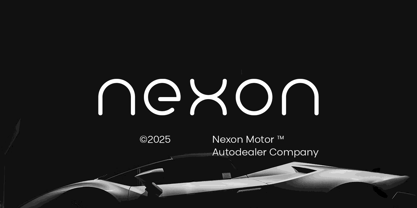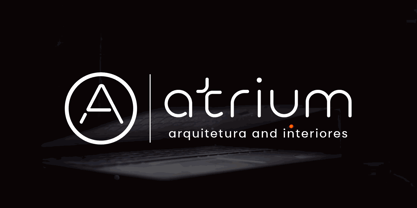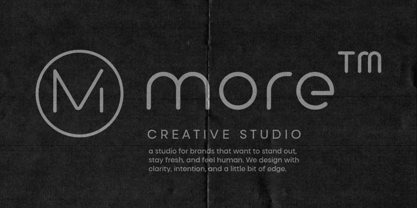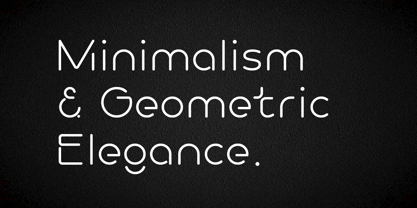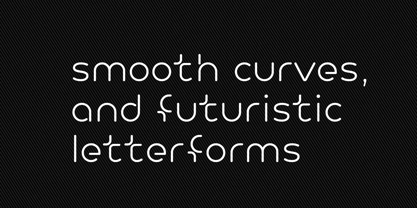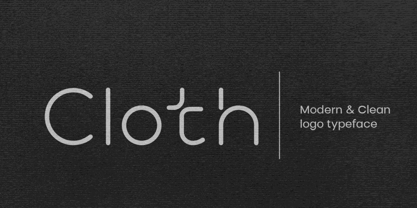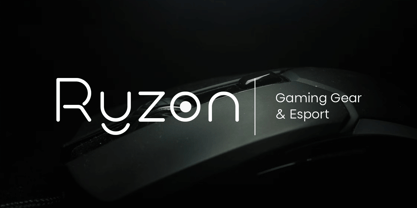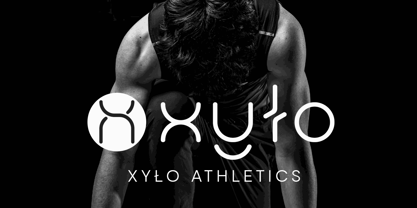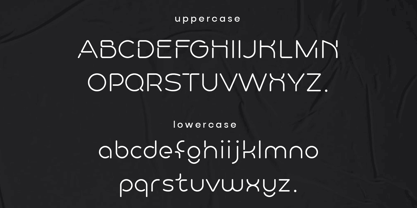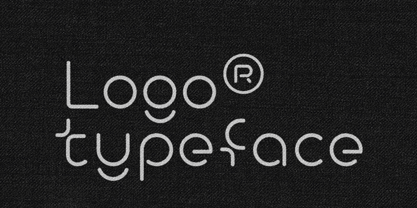
Cloth
Cloth is a refined logotype font that blends contemporary minimalism with subtle character. Its clean curves, generous spacing, and thoughtfully crafted details give it a timeless quality that feels both modern and elegant. Designed to elevate visual storytelling.
Cloth performs beautifully in logo marks, packaging, and editorial layouts where clarity and sophistication are key. It includes full support for Latin Extended characters, making it ideal for global brands seamless use across print and digital media. With its understated charm and effortless versatility, Cloth offers a distinctive voice for brands with taste.